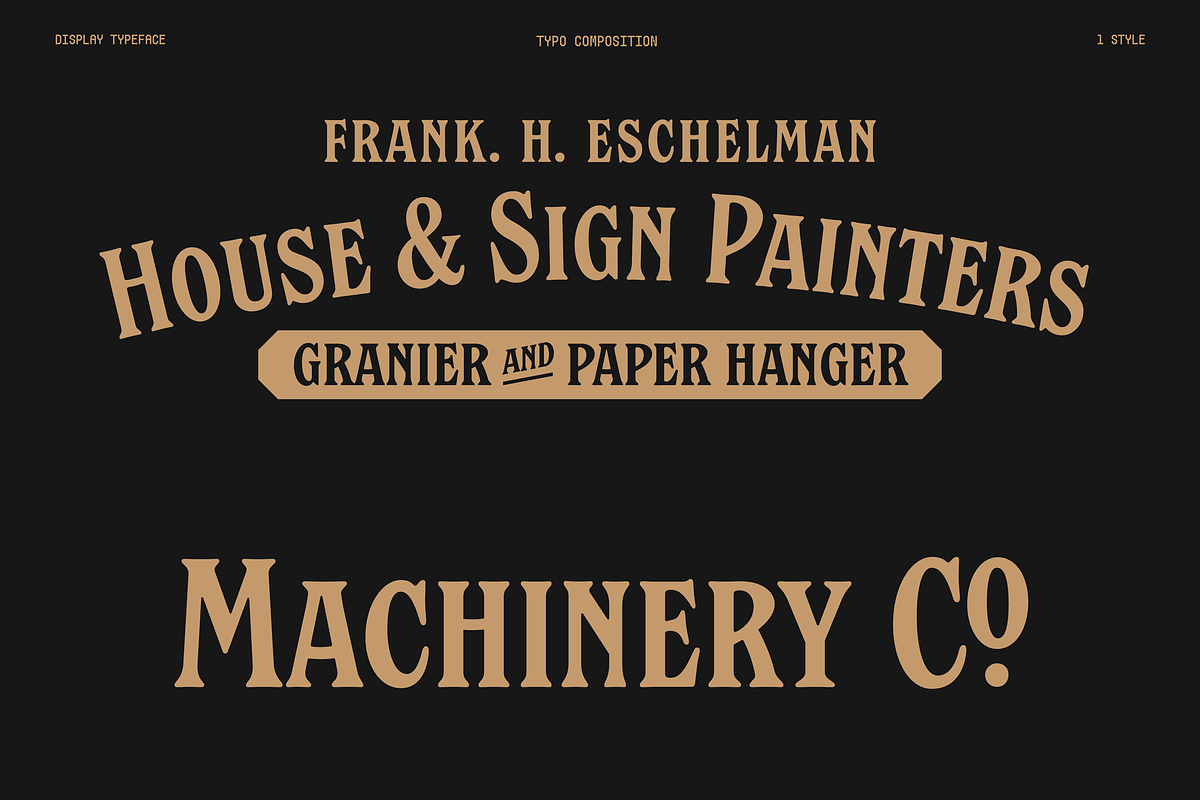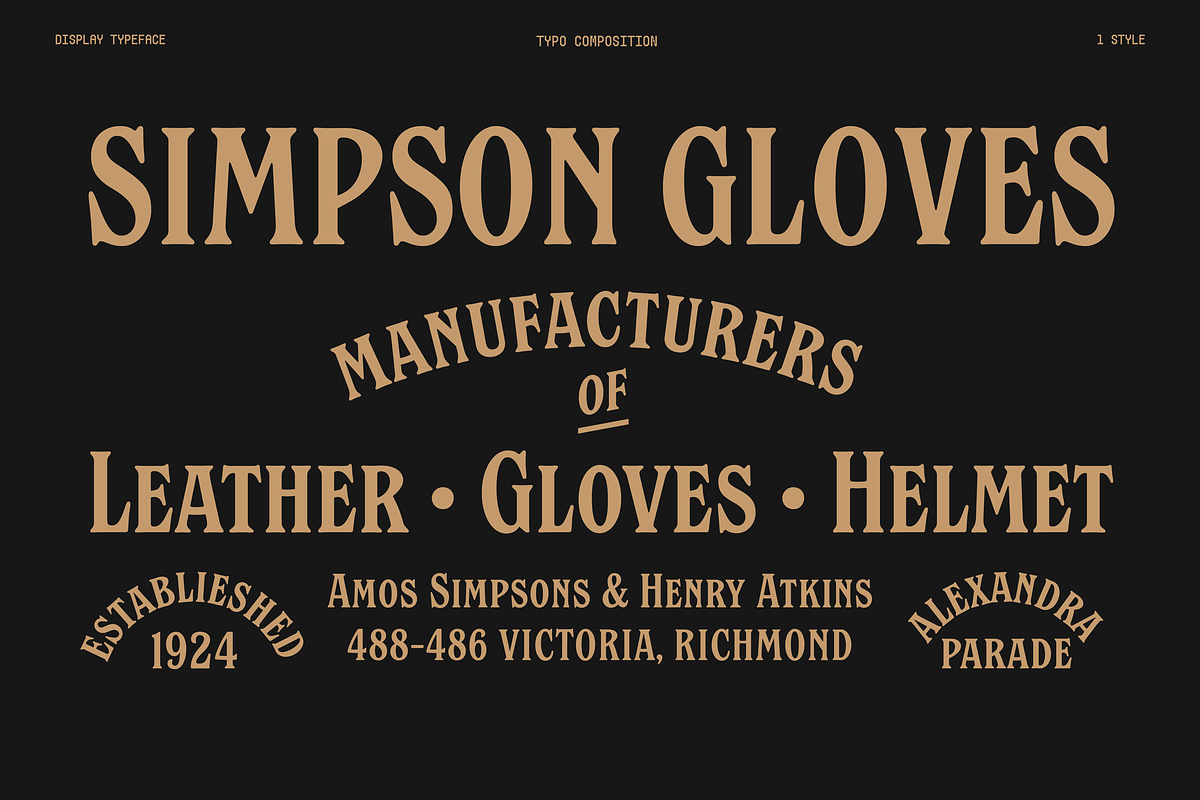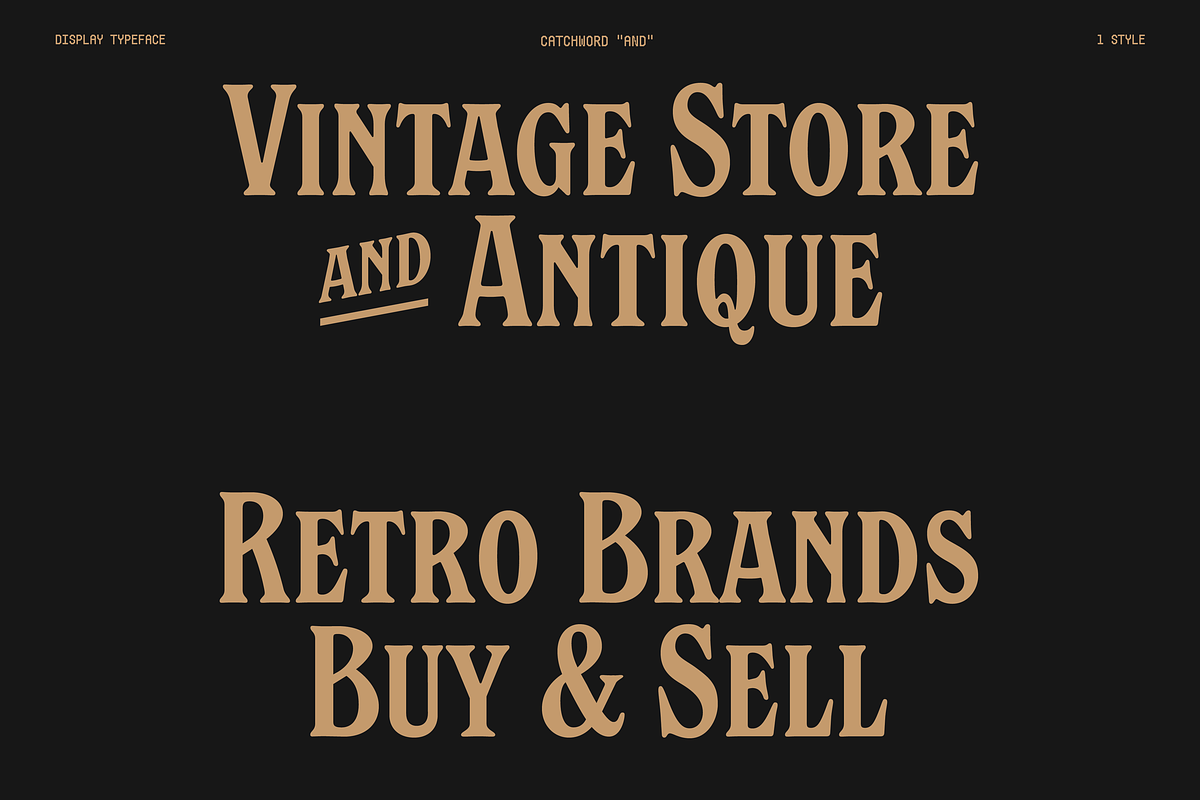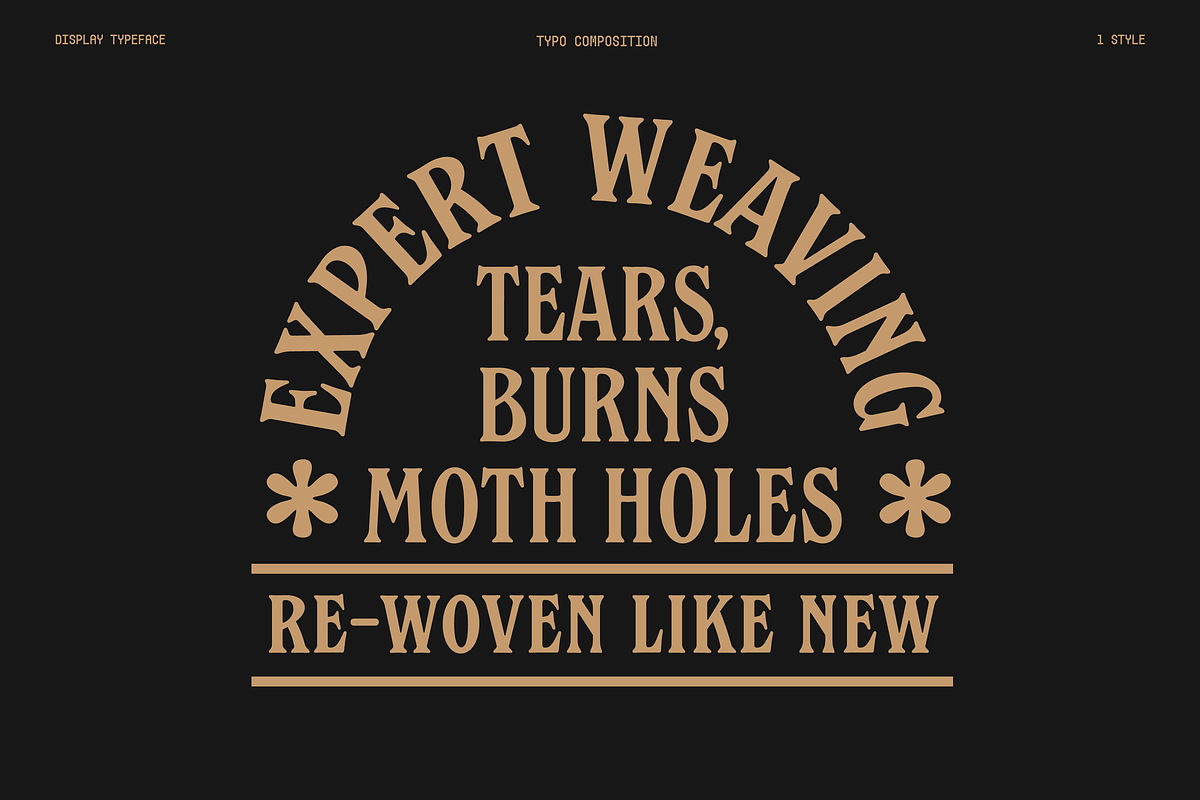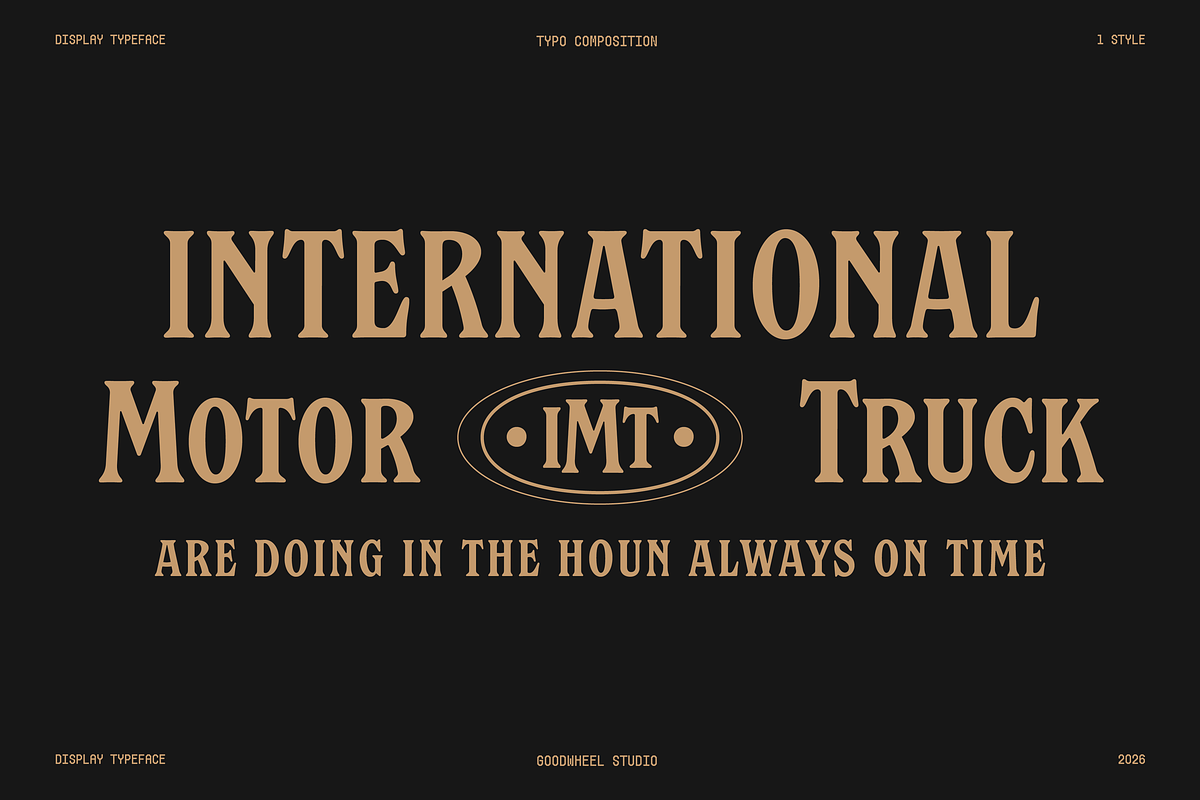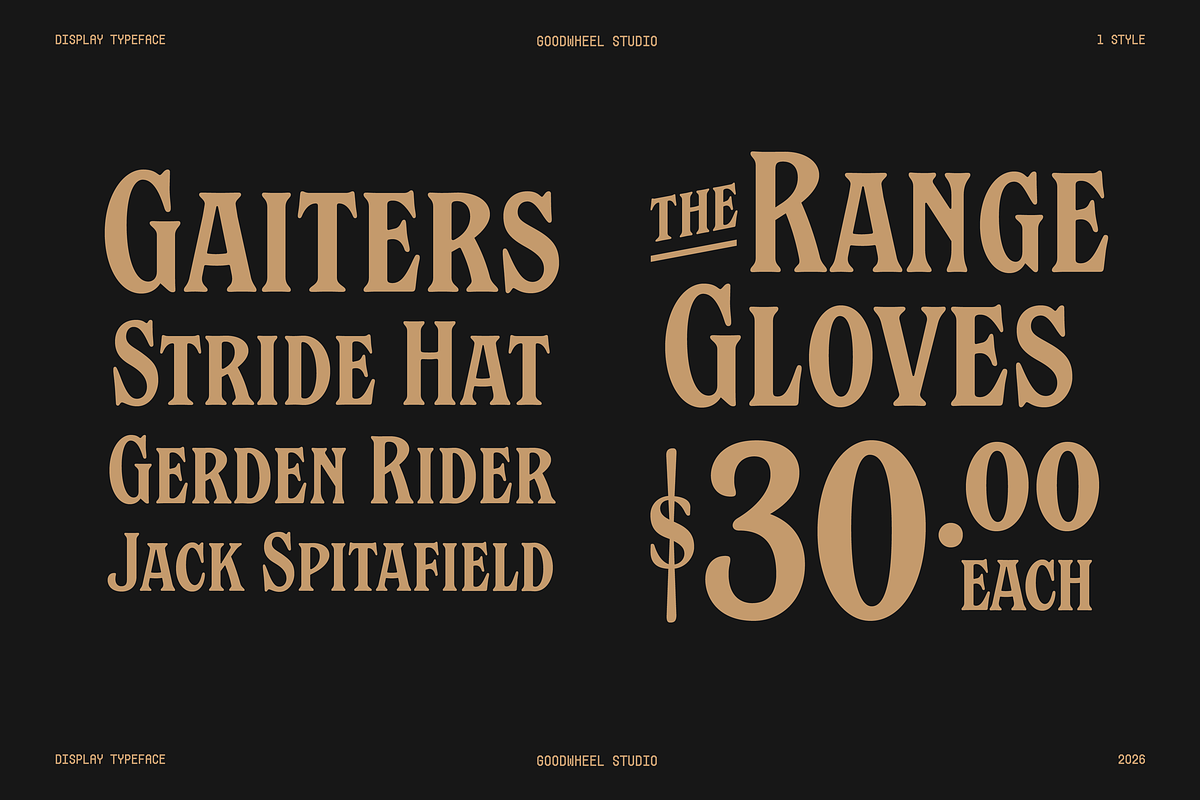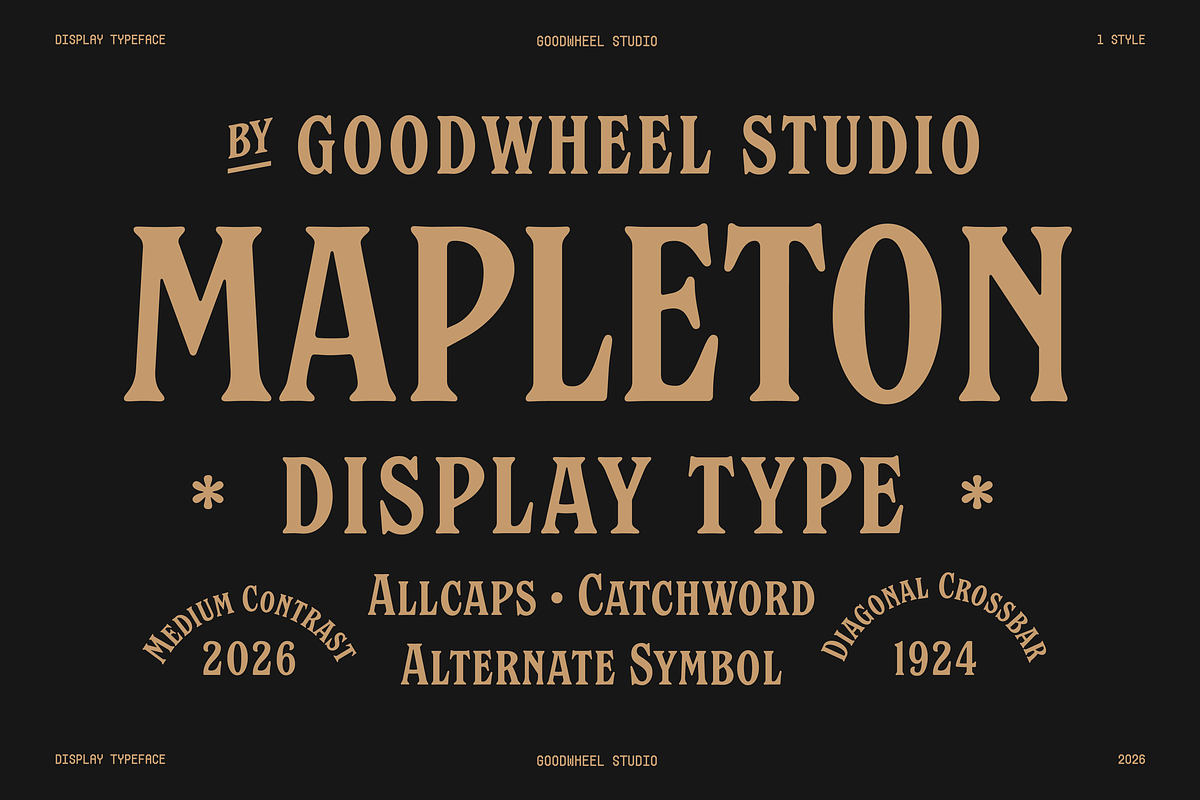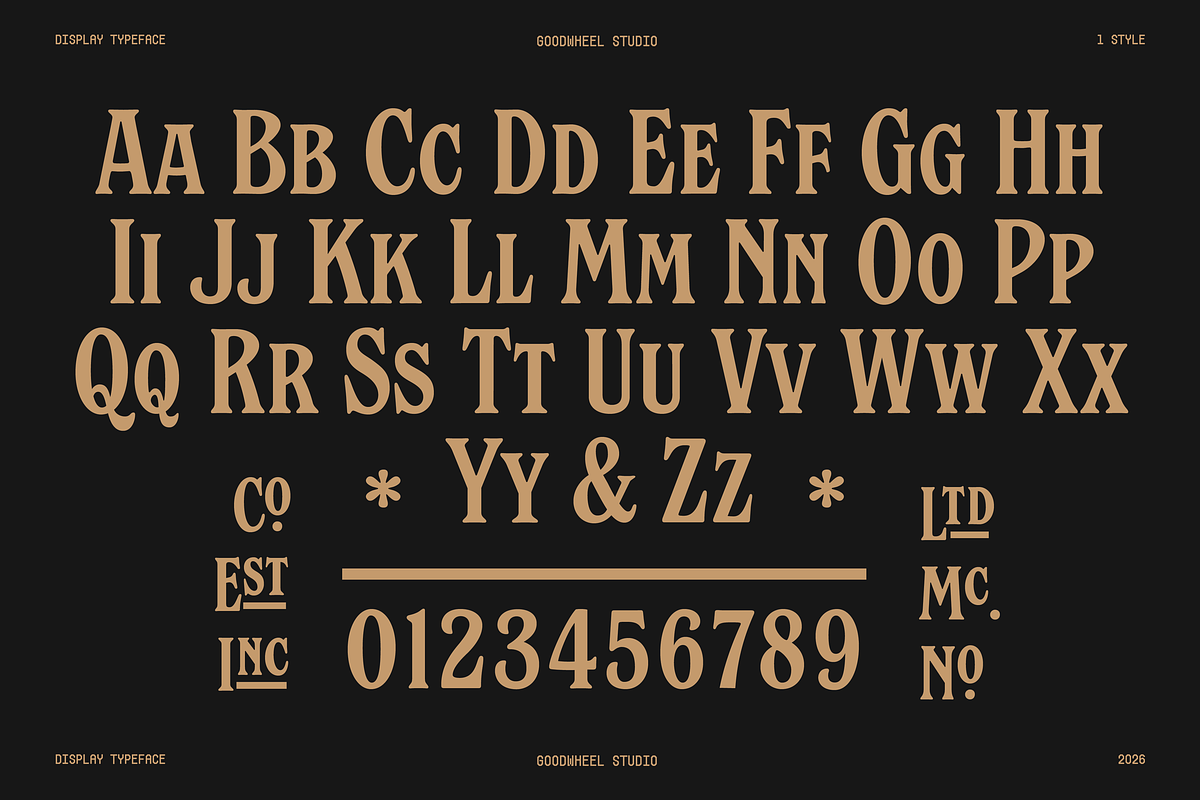
Mappleton
MAPLETON is an all-caps display typeface designed to deliver a strong and striking presence, making it effective for title, headlines, branding, and vintage typography composition or badges. With balanced medium contrast, a firm serif structure, and an organic touch inspired by hand painted sign in 20s by distinctive diagonal crossbars and alternate symbols, MAPLETON offers a balance of classic character, expressiveness, and modern relevance.